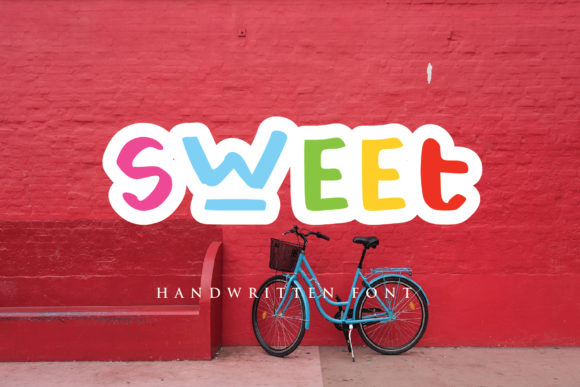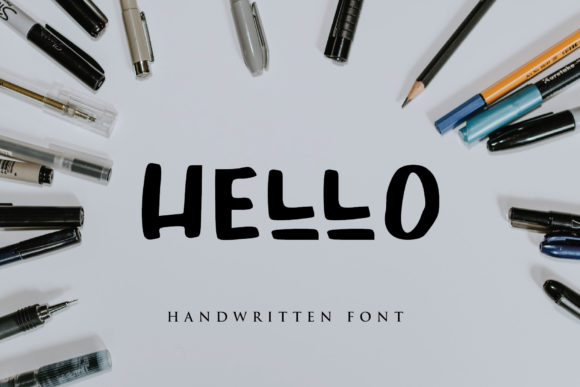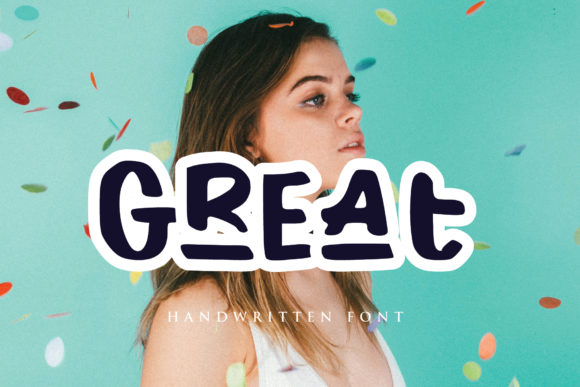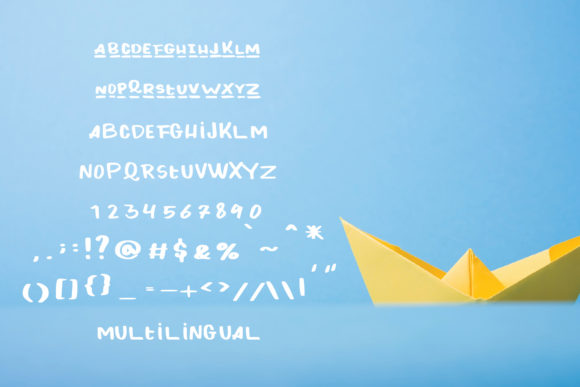
Introducing Cutie Shop Font: Elevate Your Designs with a Simple yet Striking Lettered Display Font
Are you on the hunt for a font that can instantly elevate your creative projects and make them stand out from the crowd? Look no further than Cutie Shop Font! This beautifully crafted, simple, and neat lettered display font is designed to add a touch of charm and personality to any design. Whether you’re a designer, crafter, or DIY enthusiast, Cutie Shop Font is the perfect addition to your font collection.
What Makes Cutie Shop Font So Special?
Cutie Shop Font boasts a unique blend of simplicity and elegance, making it an ideal choice for a wide range of creative projects. Here are just a few reasons why this font stands out:
- Simple yet Striking: Cutie Shop Font features a clean and minimalist design that is both easy to read and visually appealing. Its simplicity makes it versatile enough to be used in various contexts, from headings and titles to logos and branding.
- Neat Lettering: The font’s lettering is meticulously crafted to ensure that each character is clear, legible, and beautifully proportioned. This attention to detail makes Cutie Shop Font perfect for creating professional-looking designs that require a personal touch.
- Display Font: As a display font, Cutie Shop is specifically designed to make a statement. Its bold and eye-catching style is guaranteed to draw attention and add emphasis to your designs, making it ideal for headings, titles, and promotional materials.
How to Use Cutie Shop Font in Your Creative Projects
Cutie Shop Font is incredibly versatile and can be used in a variety of creative projects, including:
- Branding and Logo Design: Add a personal touch to your brand’s identity with Cutie Shop Font. Its unique style and simplicity make it an excellent choice for creating memorable logos and branding materials.
- Digital and Print Materials: Use Cutie Shop Font to create stunning digital and print materials, such as social media graphics, flyers, brochures, and posters.
- Crafting and DIY Projects: If you’re a crafter or DIY enthusiast, Cutie Shop Font can add a professional touch to your handmade products, such as labels, packaging, and instructional materials.
Tips for Getting the Most Out of Cutie Shop Font
To maximize the impact of Cutie Shop Font, consider the following tips:
- Experiment with Colors: Cutie Shop Font looks great in a variety of colors. Experiment with different hues and combinations to find the perfect color scheme for your design.
- Play with Sizes: The font’s simplicity and clarity make it suitable for use at various sizes. Experiment with different font sizes to create visual interest and hierarchy in your design.
- Combine with Other Fonts: Cutie Shop Font pairs well with other fonts. Try combining it with a serif or script font to create a unique and visually appealing typography.
Cutie Shop Font is a simple yet striking lettered display font that can instantly elevate your creative projects. Its neat lettering, simplicity, and bold style make it an excellent choice for designers, crafters, and DIY enthusiasts. With its versatility and ease of use, Cutie Shop Font is sure to become a staple in your font collection. So why wait? Add Cutie Shop Font to your creative arsenal today and watch your designs stand out like never before!